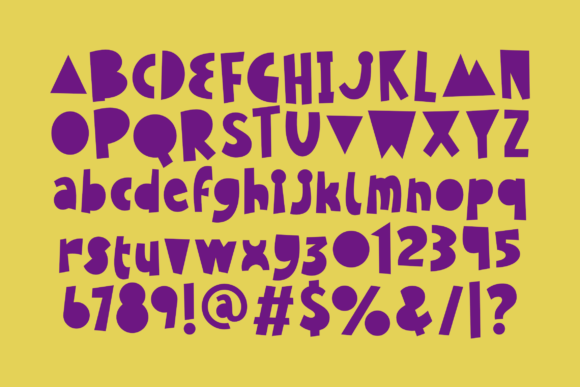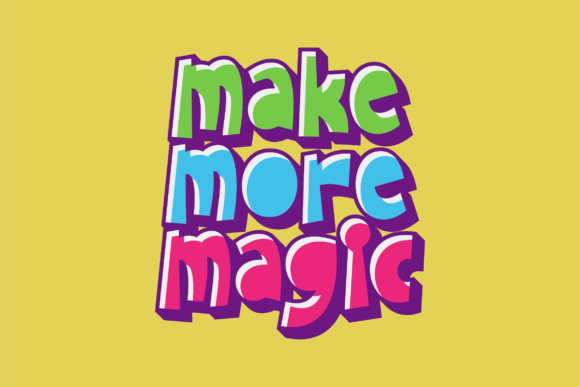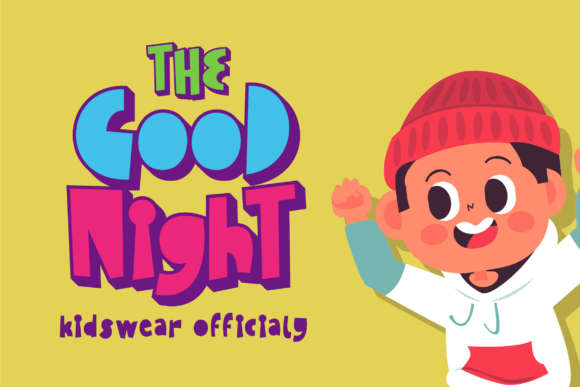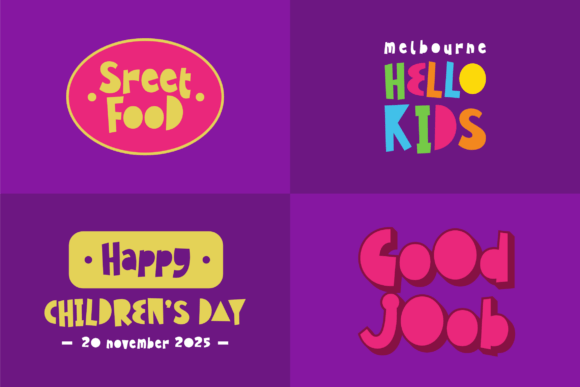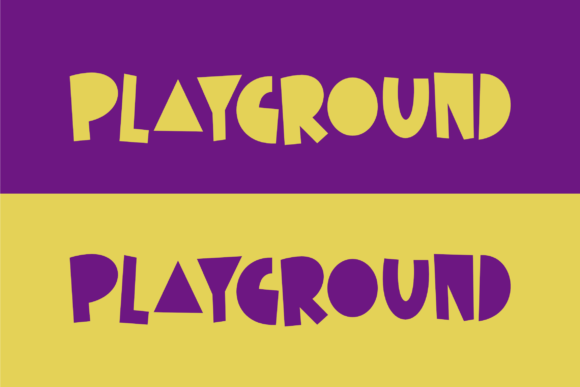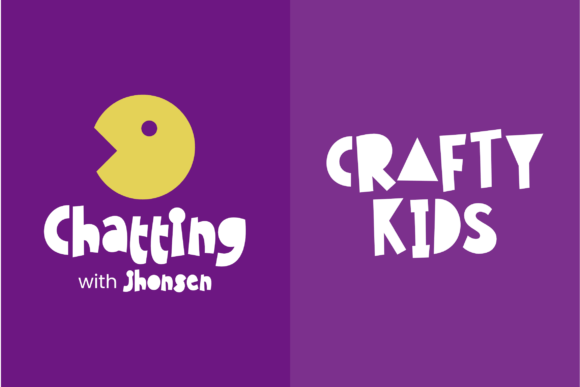
Introduction to Jolykids Font
Do you remember the thrill of creating something new and watching your imagination come to life? For designers, that feeling is a regular occurrence, but sometimes it takes the right tools to bring out the best in our creativity. That’s where the Jolykids Font comes in – a vibrant, multi-layered display font that adds an extra layer of excitement to any design.
With its bold, bouncy letters and transparent background, the Jolykids Font is the perfect addition to any creative project, whether you’re working on a children’s book, playful logo, or eye-catching social media graphics. And the best part? It’s a high-quality design resource that’s free to download, making it an invaluable asset for designers of all levels.
Whether you’re looking to add some extra fun to your design or simply want to tap into your inner child, the Jolykids Font is the perfect resource to spark your creativity and bring joy to your designs.
Key Features of Jolykids Font
- High-quality design for creative projects, perfect for use in digital art, graphics, and more.
- Includes a transparent background, allowing for easy integration into various design elements.
- Unique, playful design that adds a touch of whimsy to any creative project.
- Perfect for use in logos, branding, and other design elements where a fun and youthful feel is desired.
Honest Review: Jolykids Font
As a designer, I’m always on the lookout for high-quality design resources that can elevate my creative projects. The Jolykids Font is a relatively new addition to the world of free fonts, and I was excited to give it a try.
- Unique and playful style: The Jolykids Font has a quirky and whimsical feel that’s perfect for projects that need a bit of personality.
- High-quality design: The font is well-crafted and looks great at various sizes, making it suitable for a range of applications.
- Limited character set: While the font has a wide range of letters and symbols, it’s not a comprehensive character set, which may limit its use for certain projects.
- Not ideal for large text: While the font looks great at smaller sizes, it may not be the best choice for large blocks of text, as it can become difficult to read.
Overall, the Jolykids Font is a great addition to any designer’s toolkit. Its unique style and high-quality design make it an excellent choice for creative projects that require a bit of flair. However, its limitations should be taken into consideration when deciding whether to use it for a particular project.
Tips for Getting the Most Out of Jolykids Font
For high-quality results, use the Jolykids Font with a transparent background to give your designs a clean and modern look. Experiment with different font sizes and styles to add visual interest to your project.
Common Use Cases for Jolykids Font
The Jolykids Font is ideal for a variety of creative projects, including:
- Infographics and data visualizations
- Print and digital marketing materials
Alternatives to Jolykids Font
Comic Sans MS is a popular sans-serif font that is often used in creative projects, especially those that require a playful and approachable tone. It is available for free download and can be used for both personal and commercial purposes.
When to use: Comic Sans MS is ideal for projects that require a fun and casual tone, such as children’s books, greeting cards, or social media graphics.
Comparison to Jolykids Font: Comic Sans MS has a similar playful feel to Jolykids Font, but with a more rounded and childlike appearance. It is also more widely available and has a larger character set.
Great Vibes is a modern sans-serif font that is perfect for designers looking for a high-quality alternative to Jolykids Font. It features a clean and minimalist design, making it ideal for creative projects that require a professional and sophisticated look.
When to use: Great Vibes is ideal for projects that require a clean and modern design, such as business cards, brochures, or website headers.